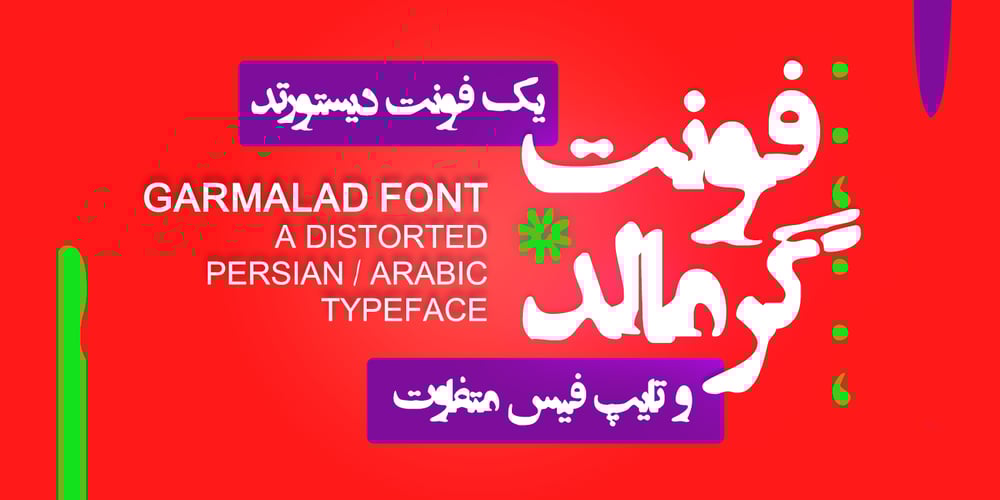
Garmalad Font Family was designed by Shahab Siavash and published by Si47ash Fonts. Garmalad contains 1 styles and family package options. A distorted and fun Persian Arabic font which brings a lot of diverse emotions! Garmalad font is playing with standard and traditional way of Right to Left Arabic script. Based on Naskh, letters are designed in a deformed and disintegrated way to make it a typographic artistic typeface at the end. This font is a great choice for all graphic designers, typographers and visual artists.Shahab Siavash, the designer has done more than 30 fonts and got featured on Behance, Microsoft, McGill University research website, Hackernoon, Fontself, FontsInUse,… Astaneh text and headline font which is one of his latest designs, already got professional typographers, lay-out and book designers’ attention as well as some of the most recognizable publications in Arabic/Persian communities.